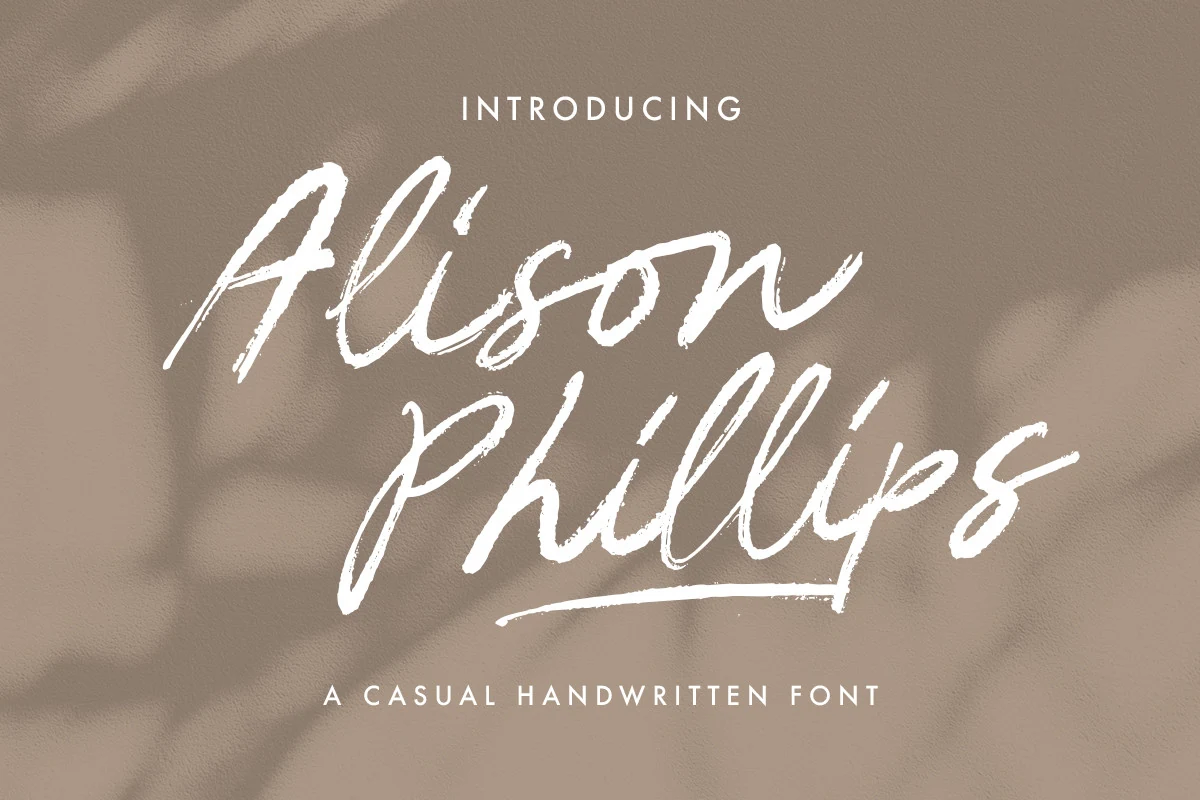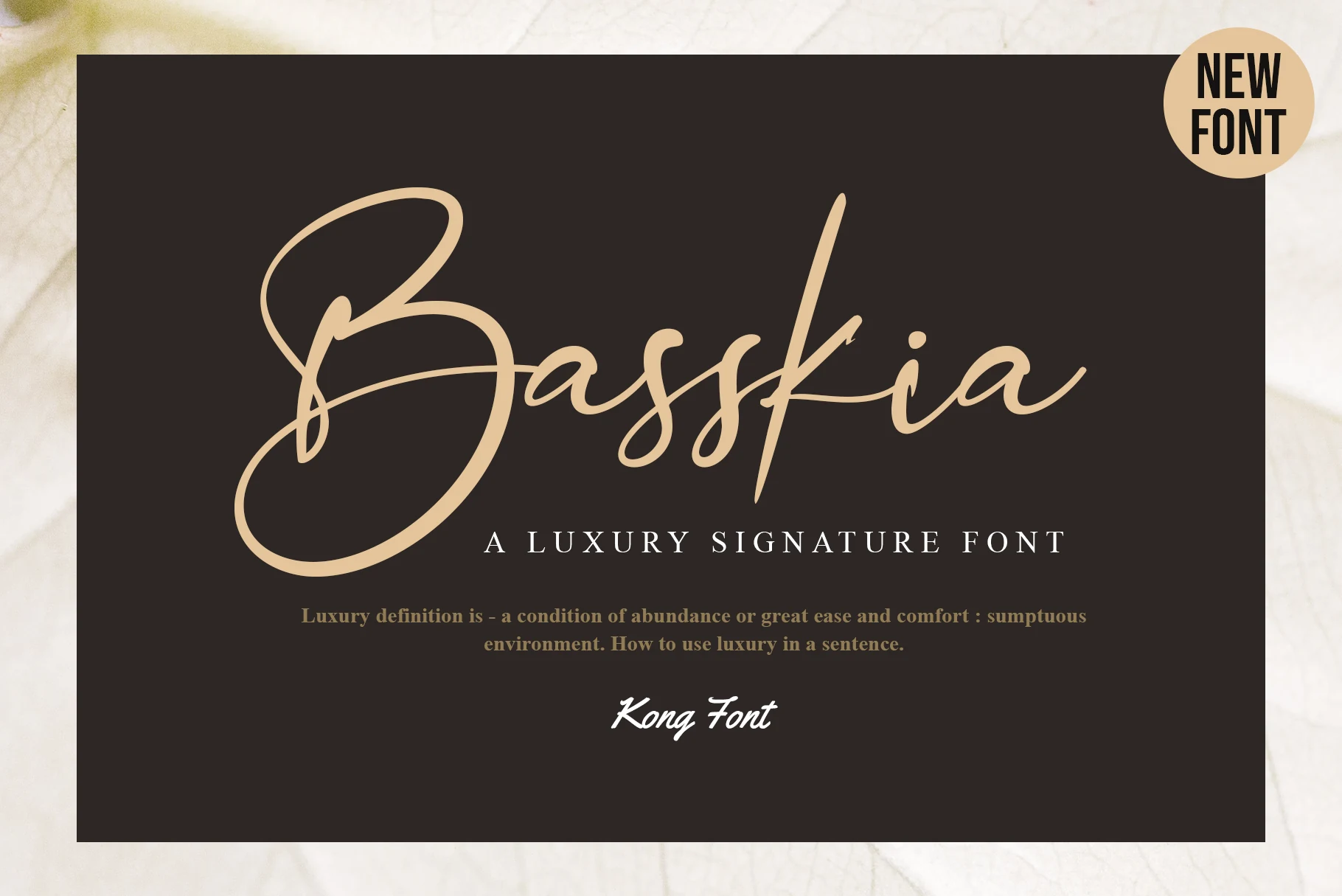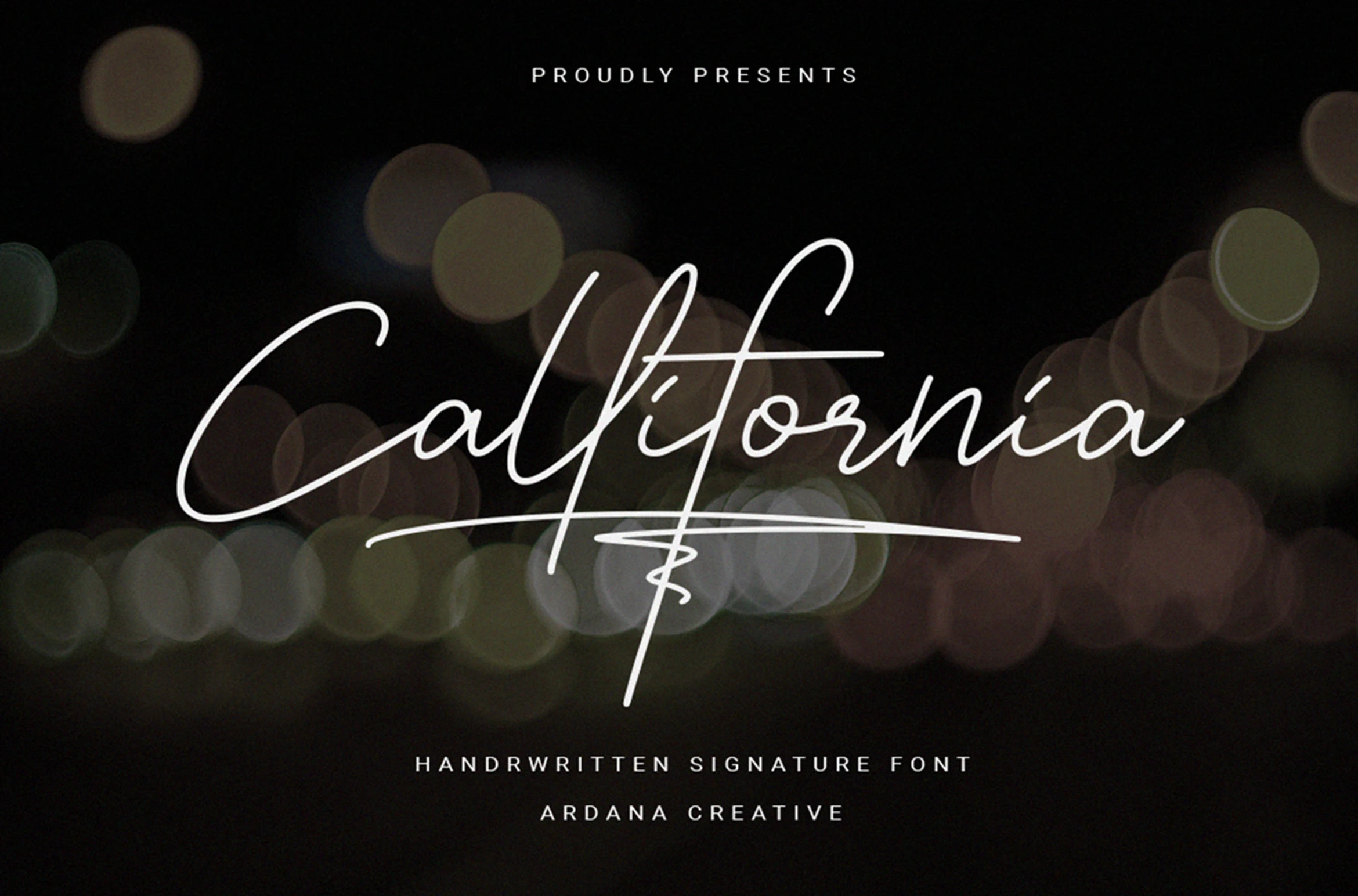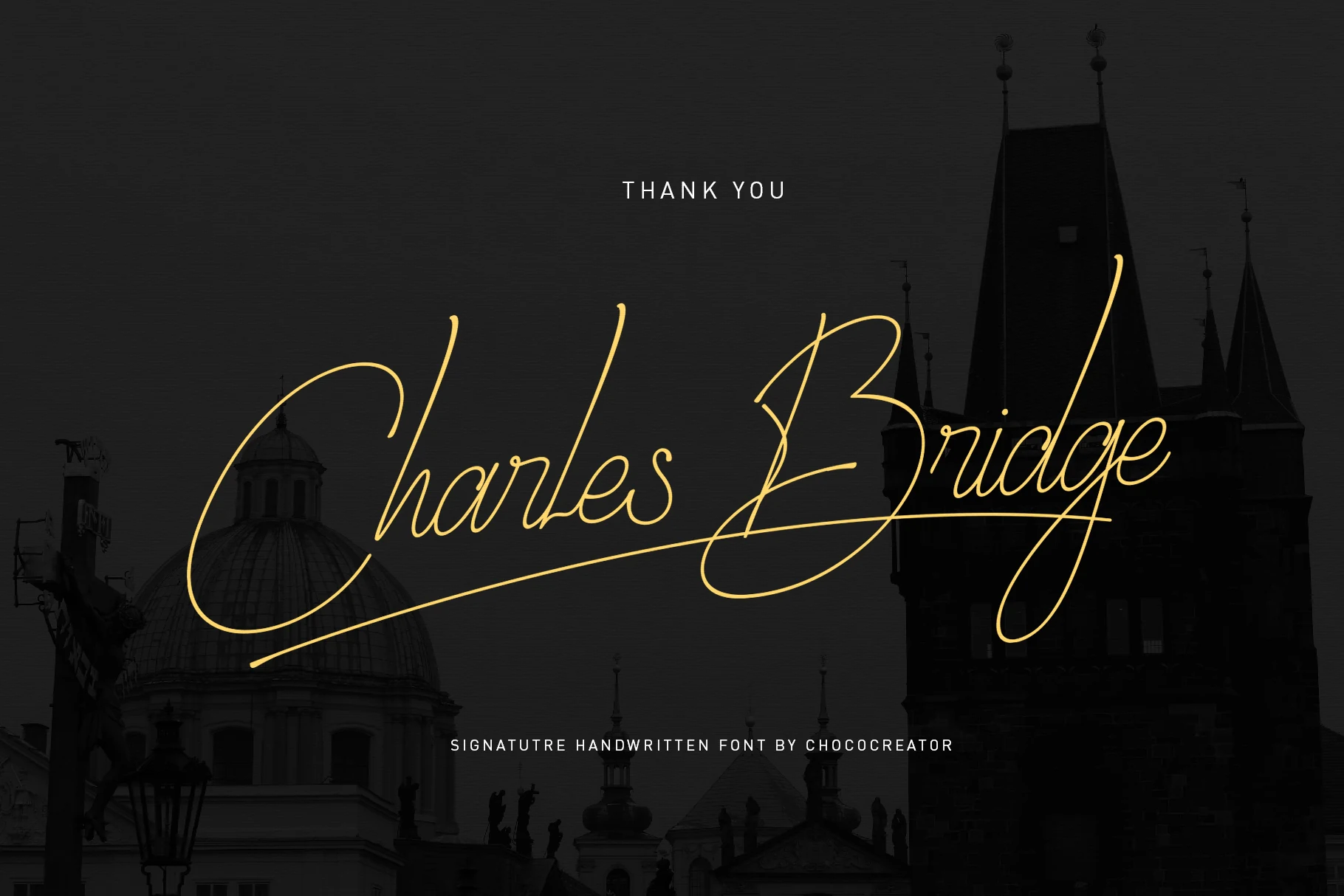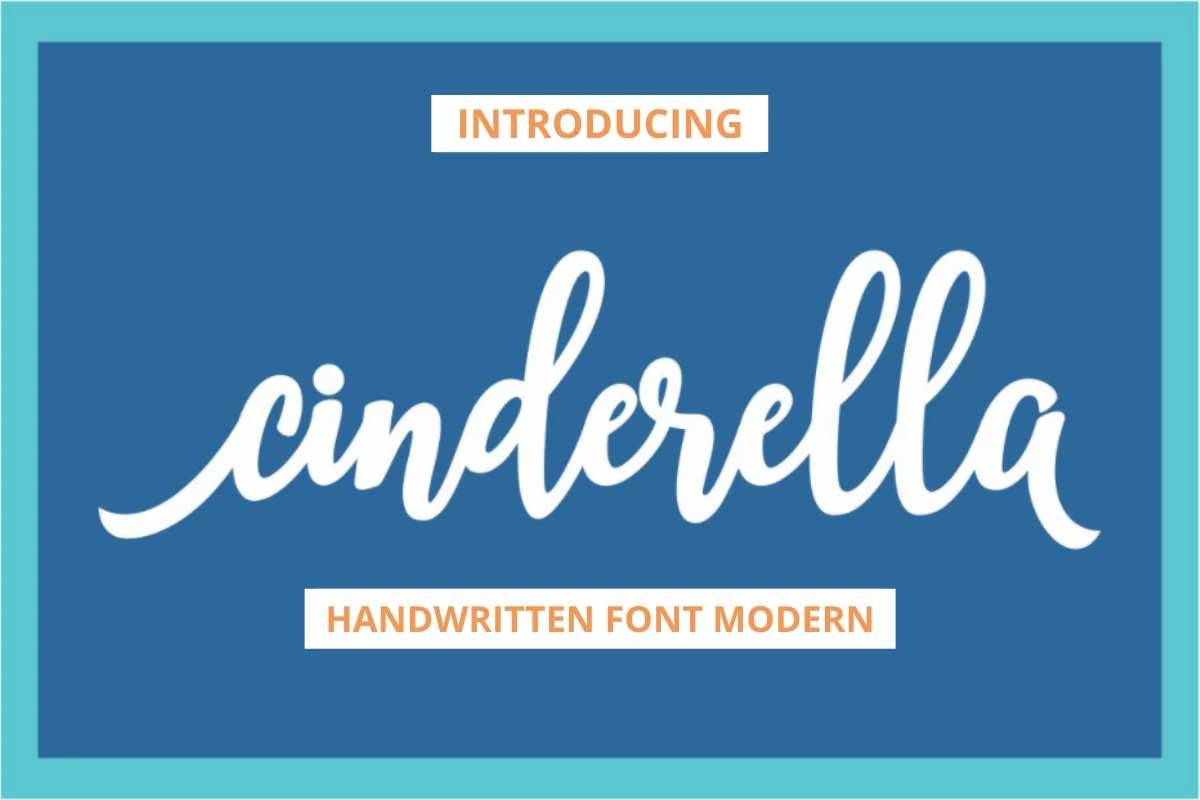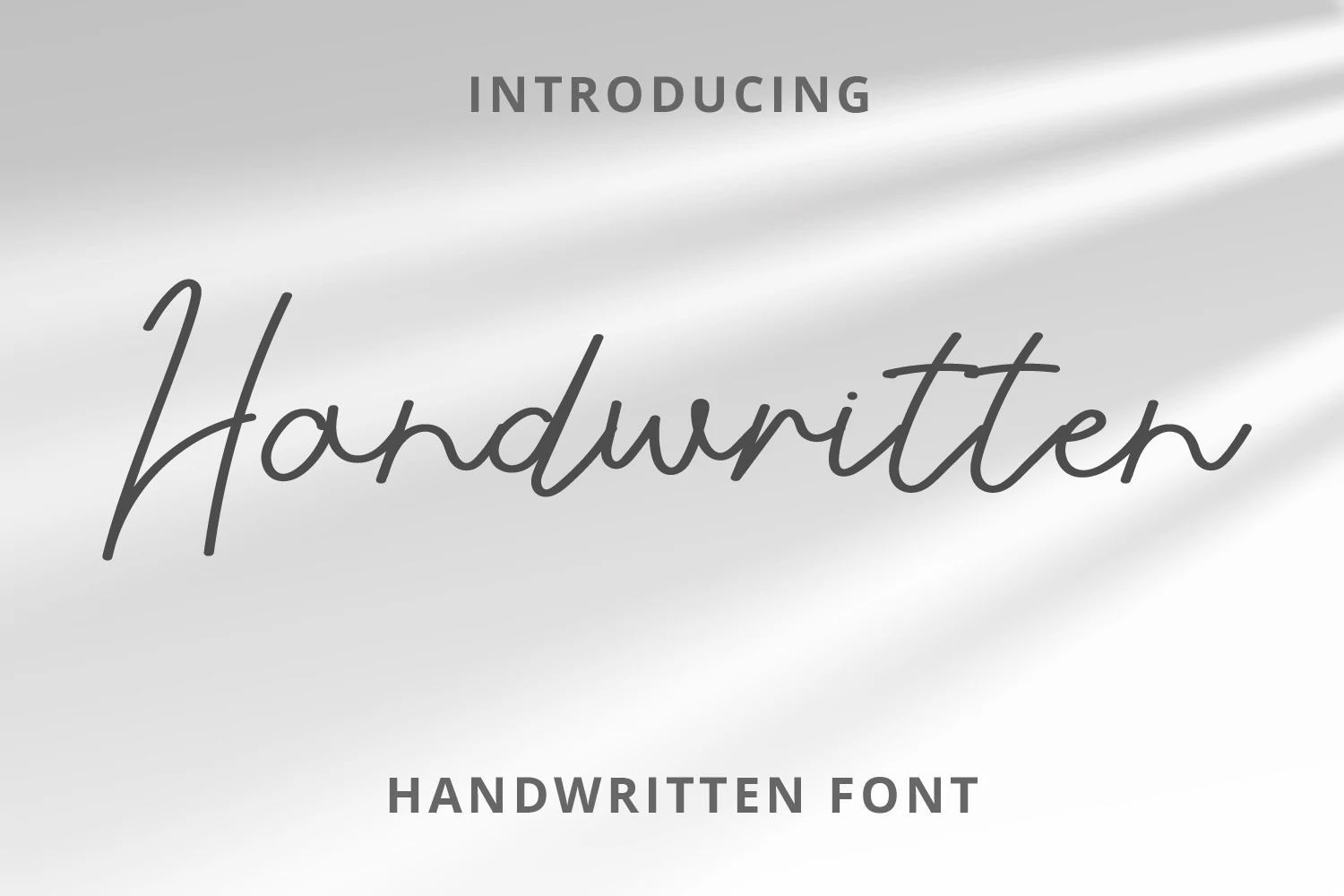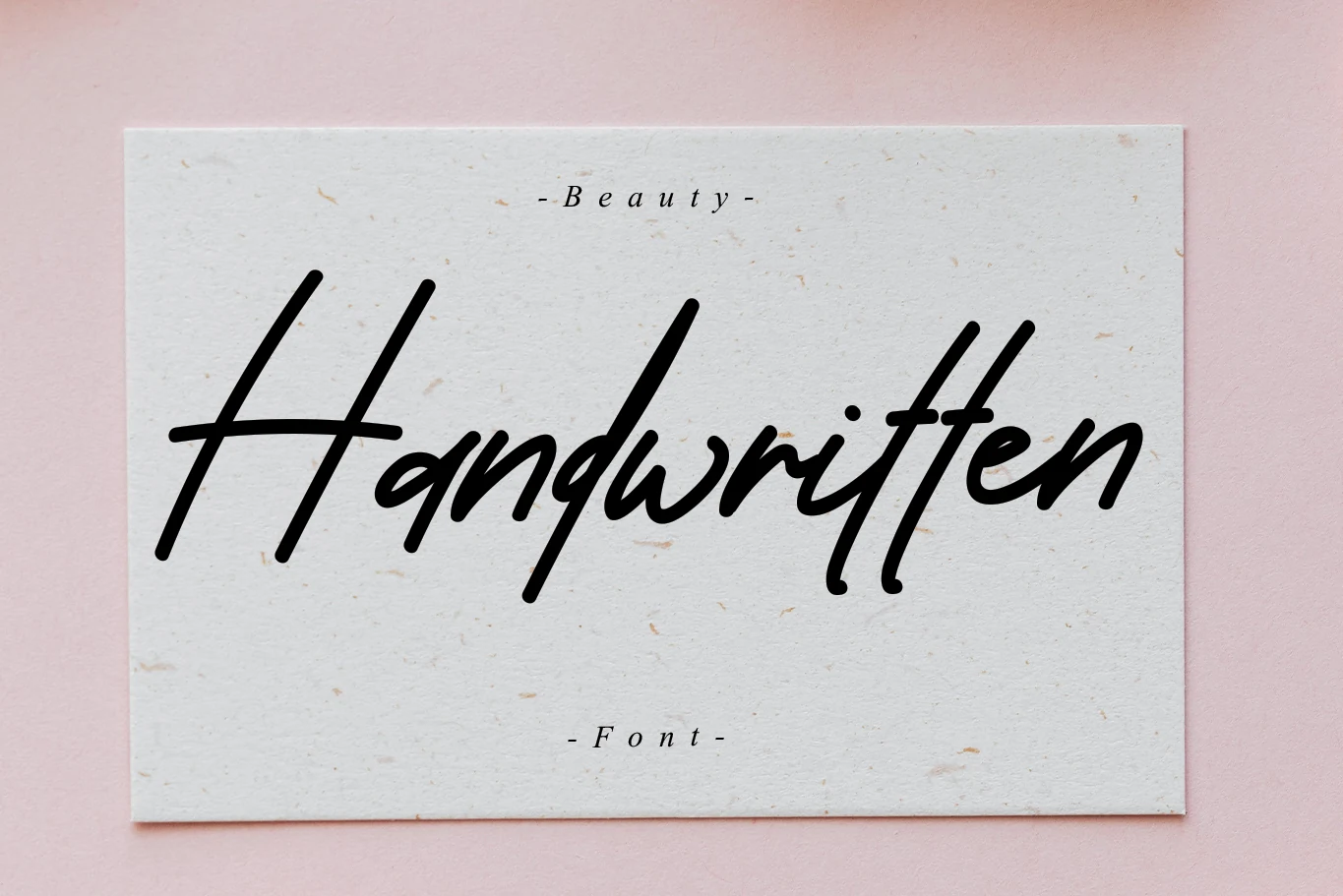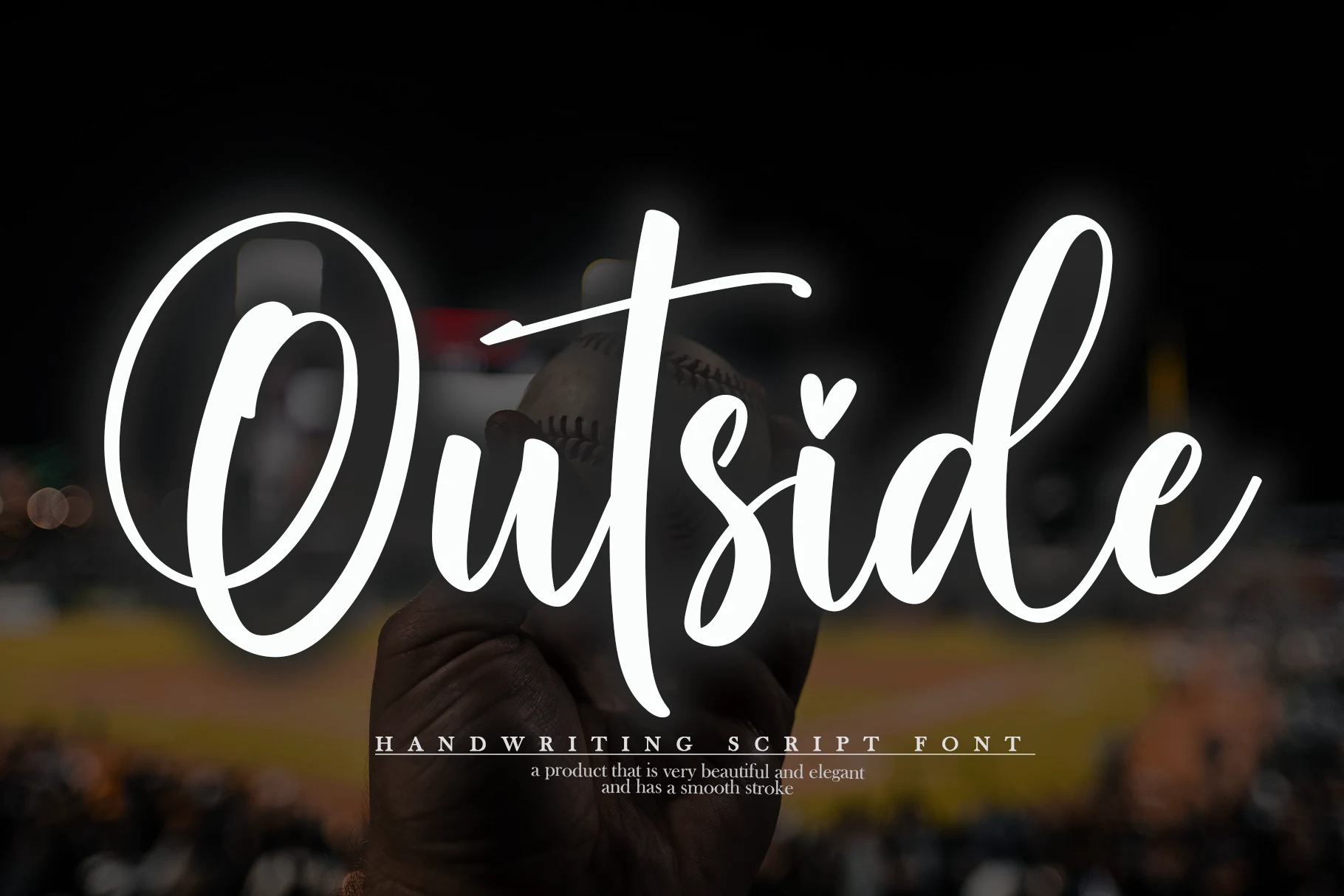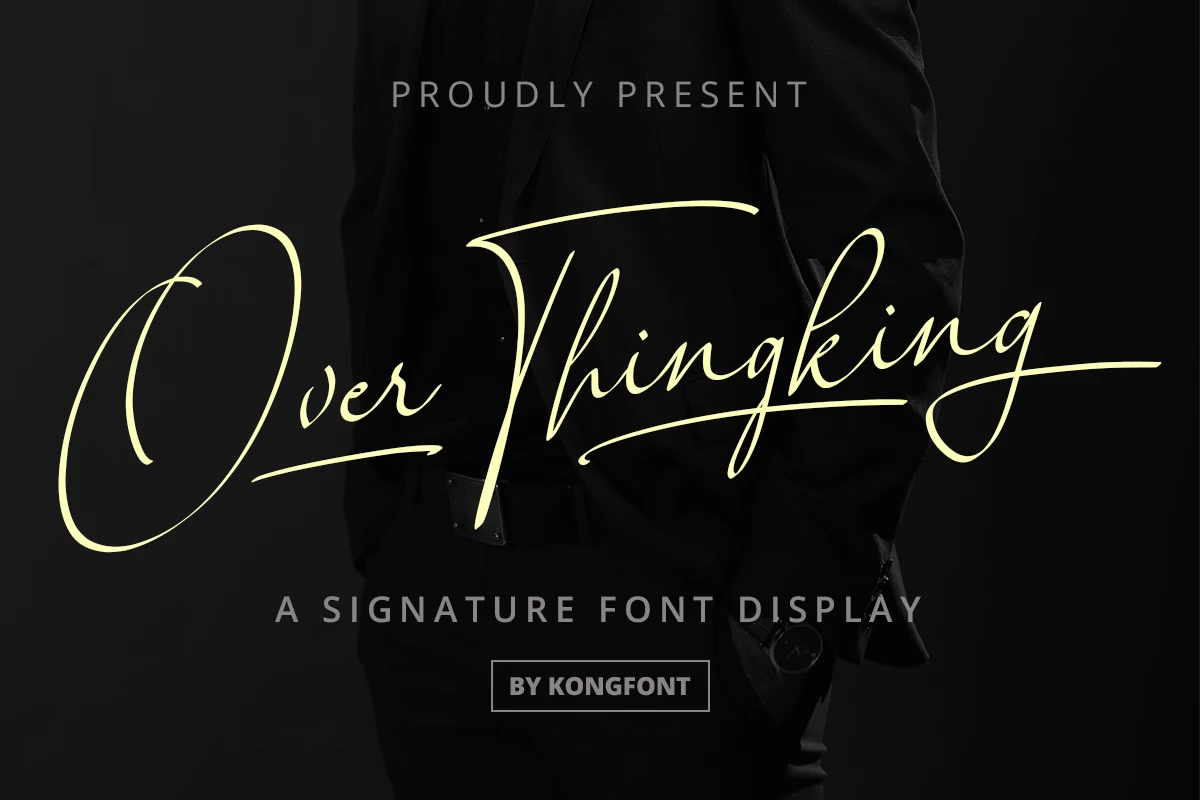
13 Best Handwritten Aesthetic Fonts in 2026
This collection spans light monoline cursives, textured brush lettering, and high-contrast scripts with flourishes, slants, and distinctive baseline movement. These Handwritten Aesthetic Fonts are most useful for logos, invitations, social graphics, signatures, headlines, and other short display applications where visible personality matters.
Handwritten Aesthetic Fonts: Flowing Monoline Scripts
These Handwritten Aesthetic Fonts rely on relatively even strokes, connected or partly connected letters, and flowing movement. Compared with brush and high-contrast groups, they usually offer cleaner silhouettes and more approachable display readability.
Handwritten Font
Handwritten Font in a large casual script with a slight rightward slant, rounded terminals, and partially connected letters.
Handwritten Font uses a monoline stroke, slight rightward slant, rounded terminals, and partly connected letters that bounce along the baseline. Among Handwritten Aesthetic Fonts, that mixed joining can make display wording easier to decipher than fully connected scripts, though small text remains challenging.
Callifornia Font
Callifornia Font displayed in a fluid connected handwritten script with a pronounced rightward slant and decorative swashes.
Callifornia Font takes a fully connected signature approach, with a pronounced rightward lean and extended lowercase-f swashes. The fine connections and ornamental endings create a personalized branding finish, but they need large headings or marks rather than compact copy.
Shavira Handwritten Font
Shavira Handwritten Font with graceful connected cursive letters, a forward slant, and fluid rounded curves.
For signature-style logos and titles, Shavira Handwritten Font offers a stable baseline, even monoline weight, forward-slanted axis, and extended loops. Its controlled movement feels more composed than a bouncy script, yet the connected characters still require large sizing for reliable reading.
Basskia Font
Basskia Font in a connected, slanted cursive script with monolinear strokes and elongated swashes.
Basskia Font forms a clean silhouette from interconnected monoline lowercase letters, a steady baseline, and elongated lead and tail swashes. The predictable weight helps logo construction, but the sweeping terminals keep it firmly in display territory rather than body text.
Handwritten Font
Handwritten Font displayed as a thin, connected cursive script with rounded terminals and fluid letterforms.
Handwritten Font is a thin monoline cursive with rounded terminals and a deliberately dancing baseline. Its personal, light mark suits invitations, quotes, and brief messages, while the connected strokes need generous size and spacing to remain clear.
Cinderella Font
Cinderella Font is a monolinear handwritten script with connected rounded letters and flowing terminals.
Cinderella Font stands apart with bold monoline connected lettering, rounded terminals, and a retro character. Its heavier construction holds together better at medium display sizes than thin scripts, making short social phrases and branding treatments comparatively easier to read.
Charles Bridge Signature Handwritten Font
Charles Bridge Signature Handwritten Font features connected cursive letterforms, a pronounced rightward slant, and extended decorative ascenders and descenders.
Charles Bridge Signature Handwritten Font combines low-contrast connected strokes with a rightward slant and extended ascenders and descenders. Those vertical flourishes add a formal invitation or card treatment, although overlapping details can obscure compact wording.
Textured Brush Scripts
Dry-brush texture, tapered ends, overlapping strokes, and irregular rhythm define this group. It feels more tactile and expressive than monoline scripts, while generally sacrificing compact-size clarity for stronger visual motion.
Reflect Handwritten Font
Reflect Handwritten Font in a connected script with a pronounced rightward slant, high stroke contrast, and an elongated underline flourish.
Reflect Handwritten Font is built from fast dry-brush sweeps, sharp tapered terminals, and an underline-like swash. This Handwritten Aesthetic Fonts option adds expressive motion to logos and headlines, but thin extended strokes can disappear when reduced, so it needs a substantial display scale.
Alison Phillips Casual Handwritten Font
Alison Phillips Casual Handwritten Font with connected cursive letterforms, dry brush texture, and a pronounced rightward slant.
Textured brush strokes, connected letters, and an irregular baseline give Alison Phillips Casual Handwritten Font an uneven, overlapping surface. That texture supports personal branding and short display phrases with an artisan impression, but it reduces clarity when words become compact or are set small.
How to Choose the Right Font
Choose among Handwritten Aesthetic Fonts by starting with construction: monoline styles are usually cleaner, bold versions tolerate smaller display sizes, brush textures add surface variation, and high contrast creates the strongest headline drama. Check joins, swashes, and flourishes at the intended size, then reserve the most intricate options for short wording.